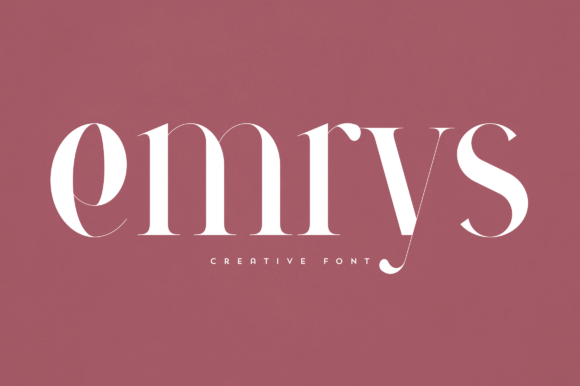
Embark on a typographic journey with Emrys, a serif font family that will captivate your audience and leave a lasting impression. Its elegant curves and timeless beauty will transform any design project into a masterpiece.
Envision your Instagram posts, stories, and captions adorned with Emrys's refined characters. Its delicate strokes and graceful serifs will add a touch of sophistication and charm to your social media presence. Let your words dance across the screen, captivating followers with their timeless allure.
Step into the world of branding and marketing with Emrys as your trusted companion. Create logos that exude elegance and leave an indelible mark on customers' minds. Design homeware collections that radiate warmth and charm, with Emrys's gentle curves adding a touch of homey sophistication. Elevate product packaging with Emrys's timeless beauty, making your products stand out from the crowd.
Unleash your creativity with Emrys in magazine headers and editorial designs. Its crisp lines and refined details will lend an air of authority and sophistication to your publications. Whether crafting headlines that command attention or body text that flows effortlessly, Emrys will elevate your designs to new heights.
With Emrys, the possibilities are boundless. Its versatile nature makes it the perfect choice for a wide range of projects, from personal blogs and invitations to marketing campaigns and corporate presentations. Let Emrys be your typographic muse, guiding you towards designs that inspire, engage, and leave a lasting impact.